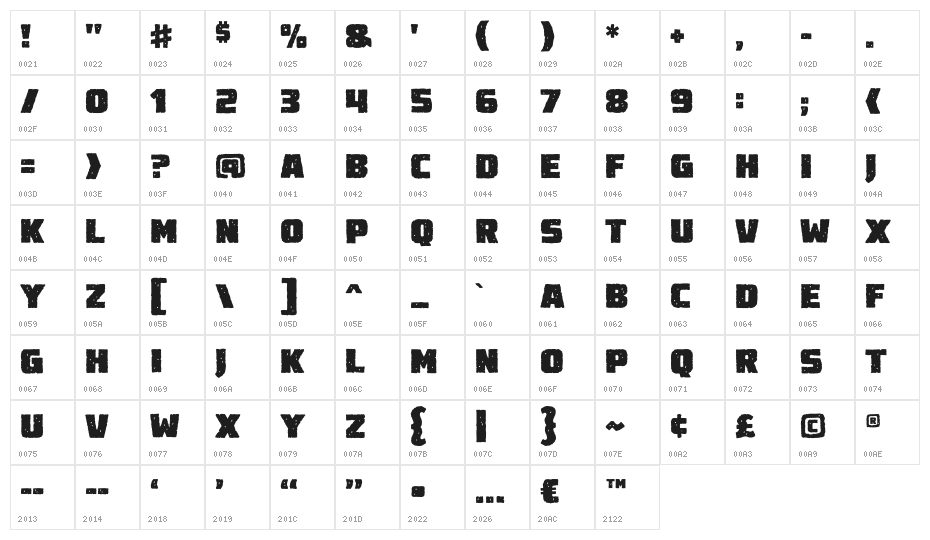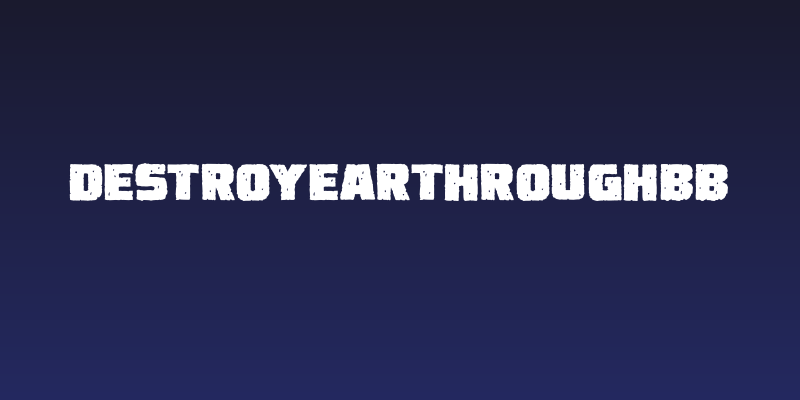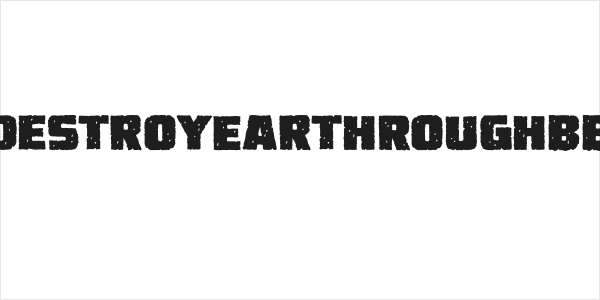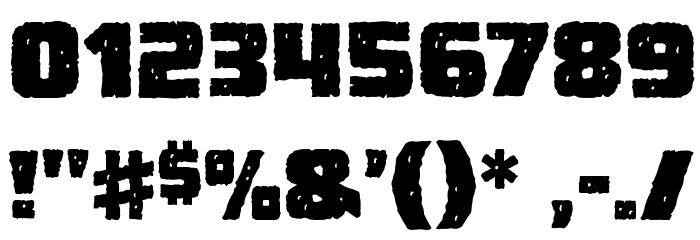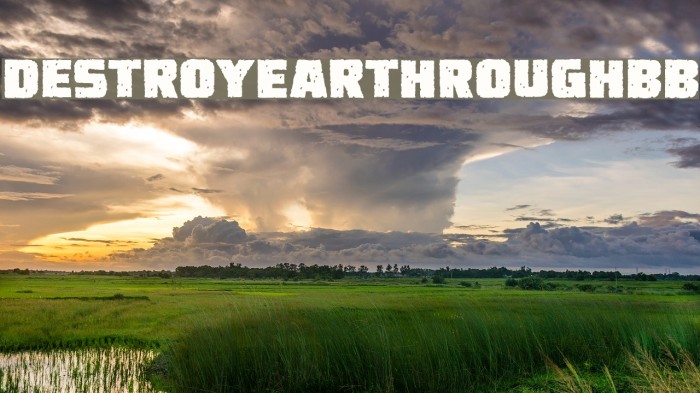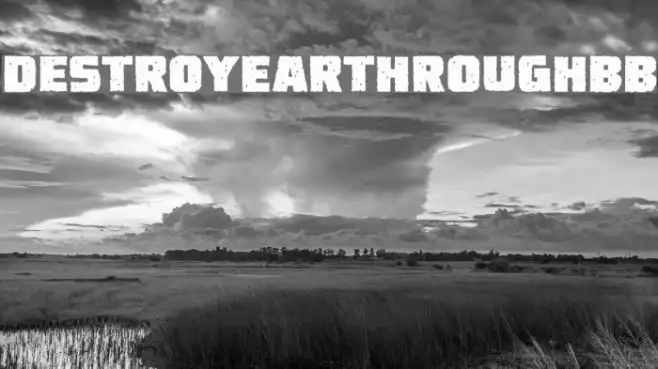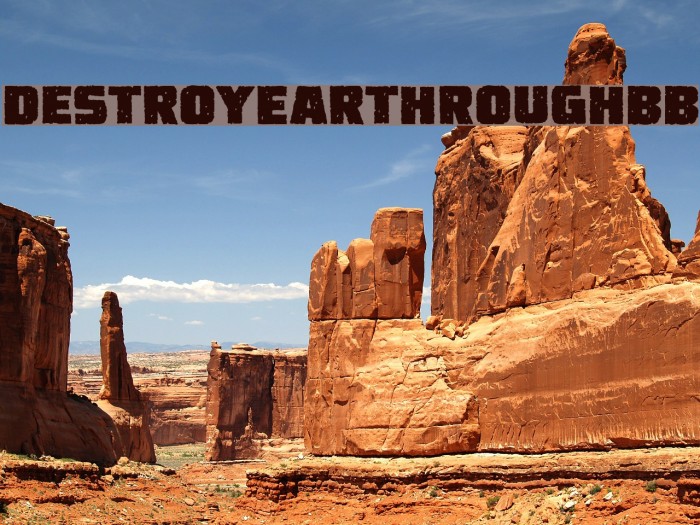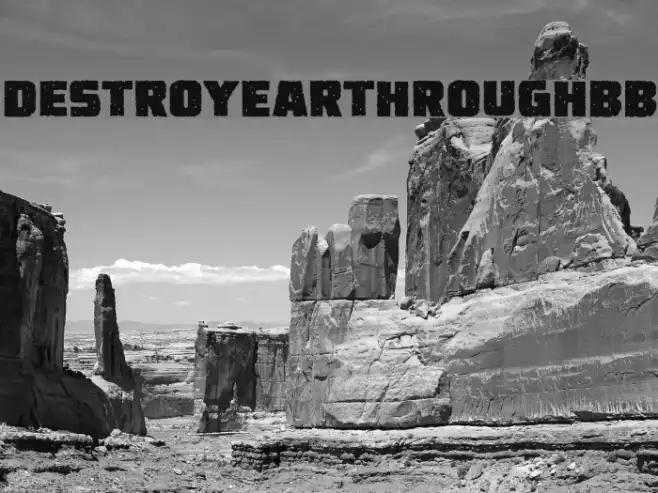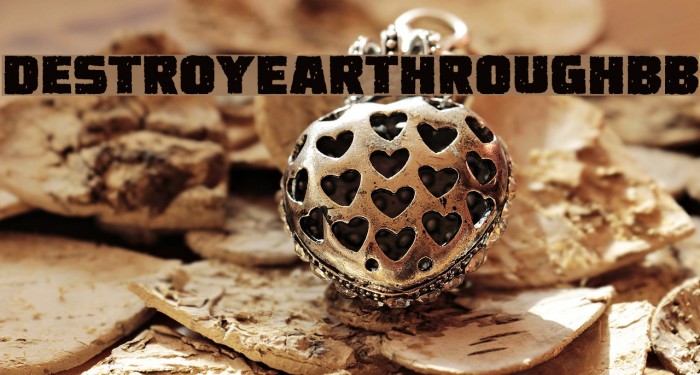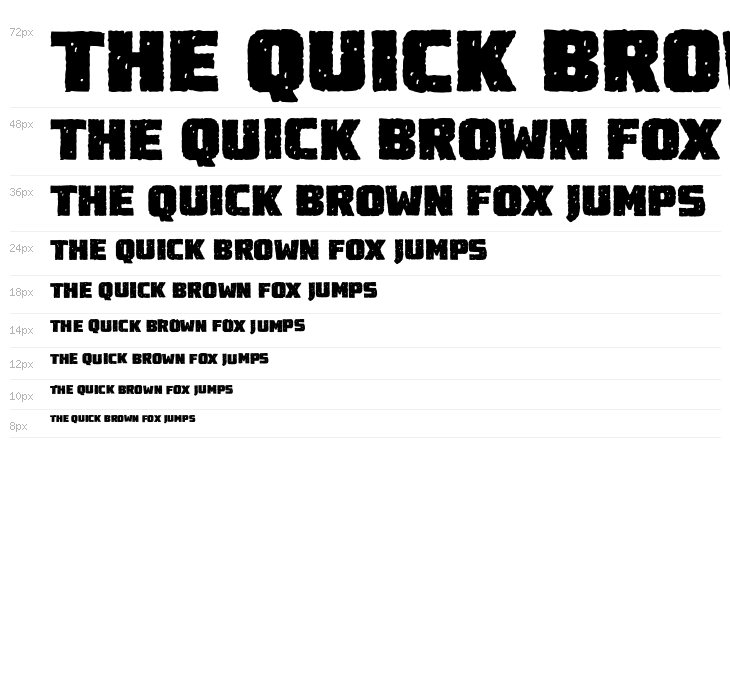
DestroyEarthRoughBB Font
DestroyEarthRoughBB Description
This font features a bold and rugged design, with a distressed texture that gives it a rough, worn appearance. The characters are thick and blocky, with uneven edges that add to the overall gritty aesthetic. The uppercase and lowercase letters maintain a consistent style, while the numbers and special characters complement the boldness of the alphabet. This font's unique texture and weight make it stand out, providing a strong visual impact.
| Proposed Projects | Ideal for projects that require a strong, impactful design such as posters, album covers, or branding for edgy or adventurous themes. |